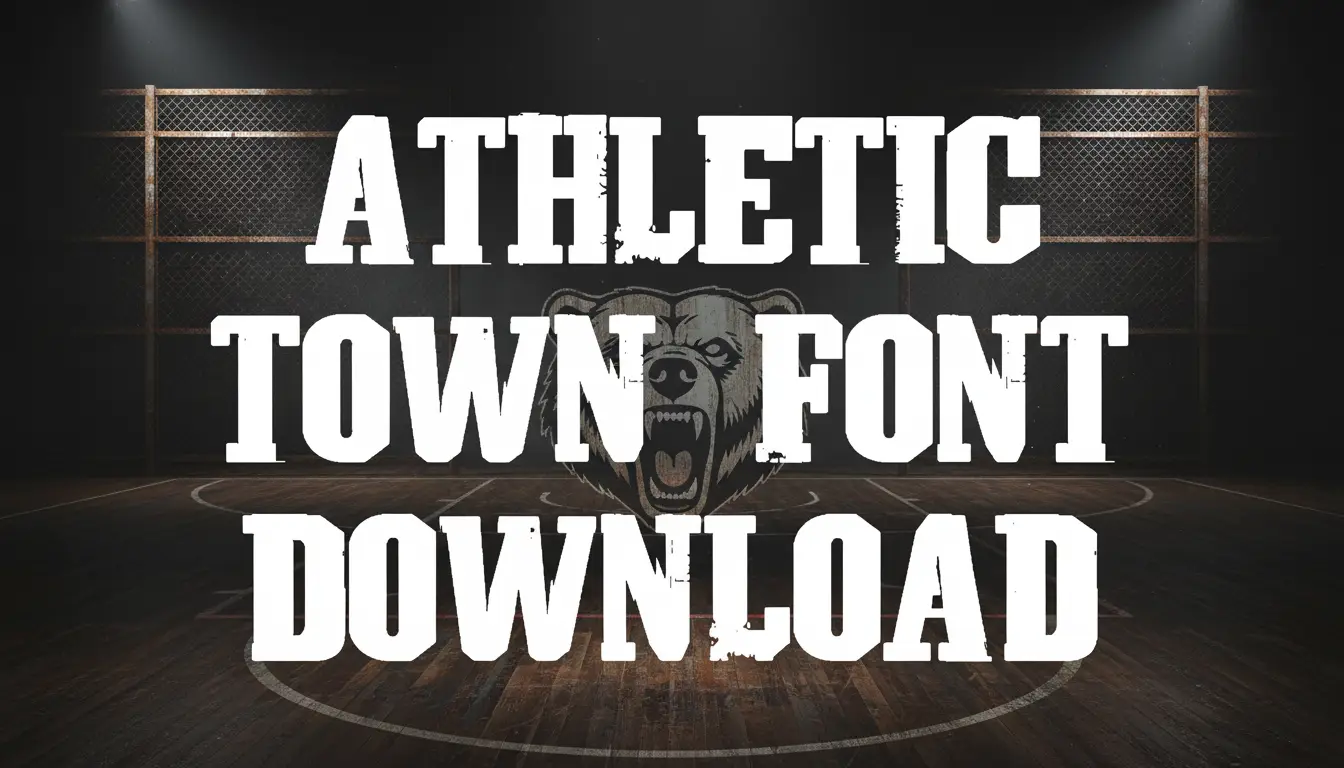
Athletic Town Font
Athletic Town
Athletic Town is a fancy font created by Julien and released through Distreect. Bold and full of character, it's built to stand out rather than blend in. You can download it for free and test it with your own words in the preview above.
What You Can Type With Athletic Town
Athletic Town has the full alphabet in upper and lowercase. There are no numbers, so you'll need a second font for dates, prices or phone numbers. Punctuation is limited, so look at the character map if you need a specific symbol. It doesn't include accented letters such as é or ñ, which makes it an English-only font.
Where Athletic Town Works Best
Designers usually reach for fonts like Athletic Town when they're making posters, logos and eye-catching headlines. Use it for one standout word or headline and let simpler fonts handle the rest.
Does Athletic Town support accented letters?
No. Athletic Town has no accented letters such as é, ñ or ü, so it's best for English text.